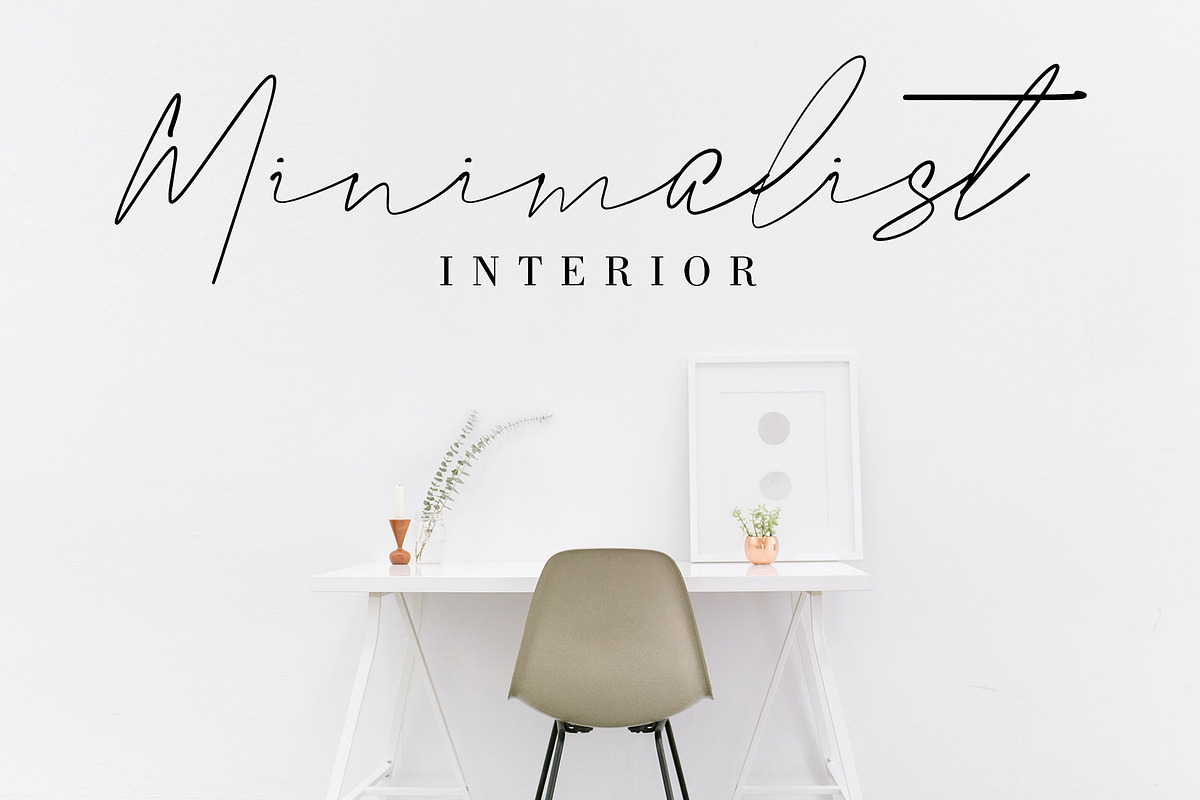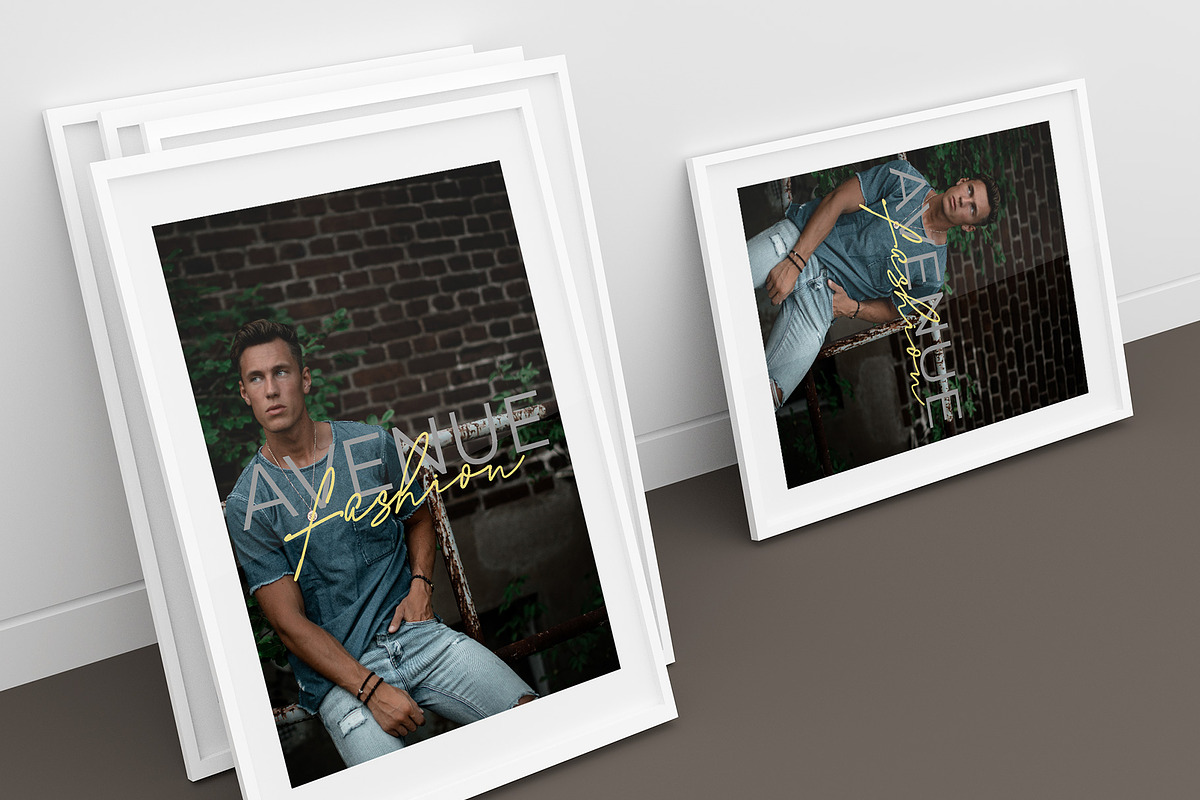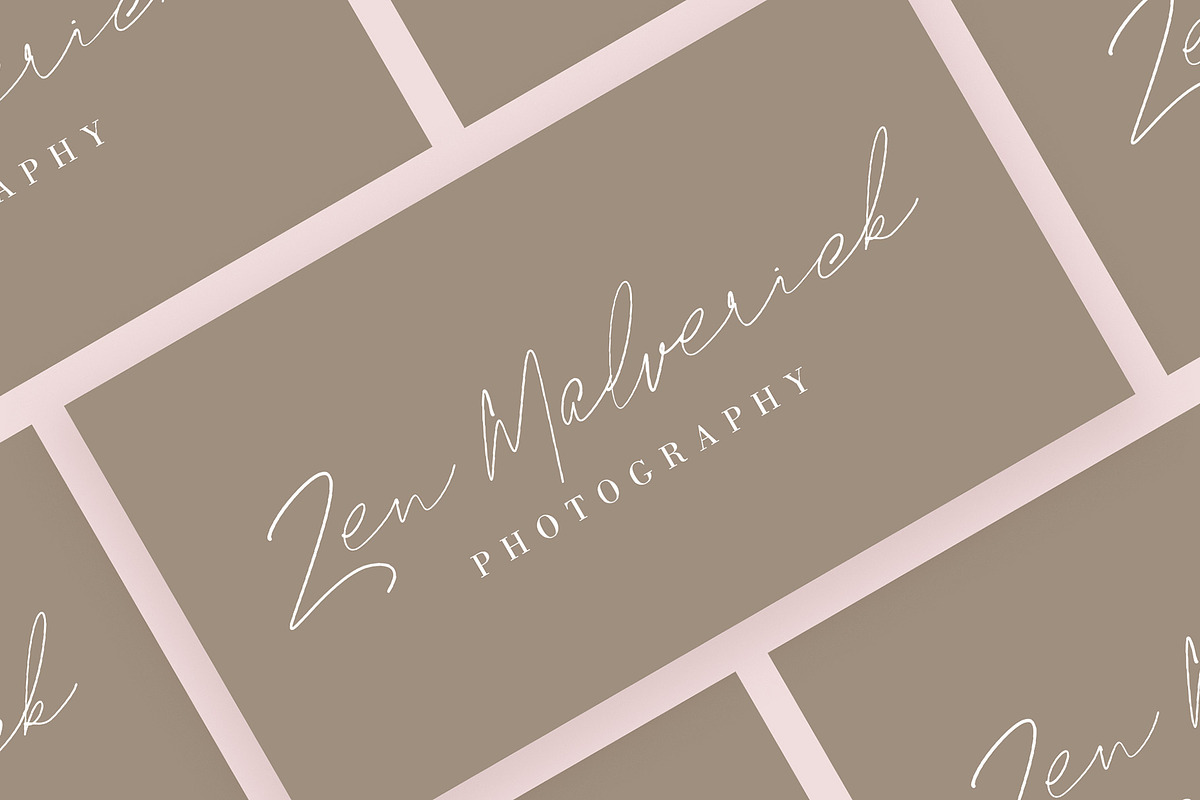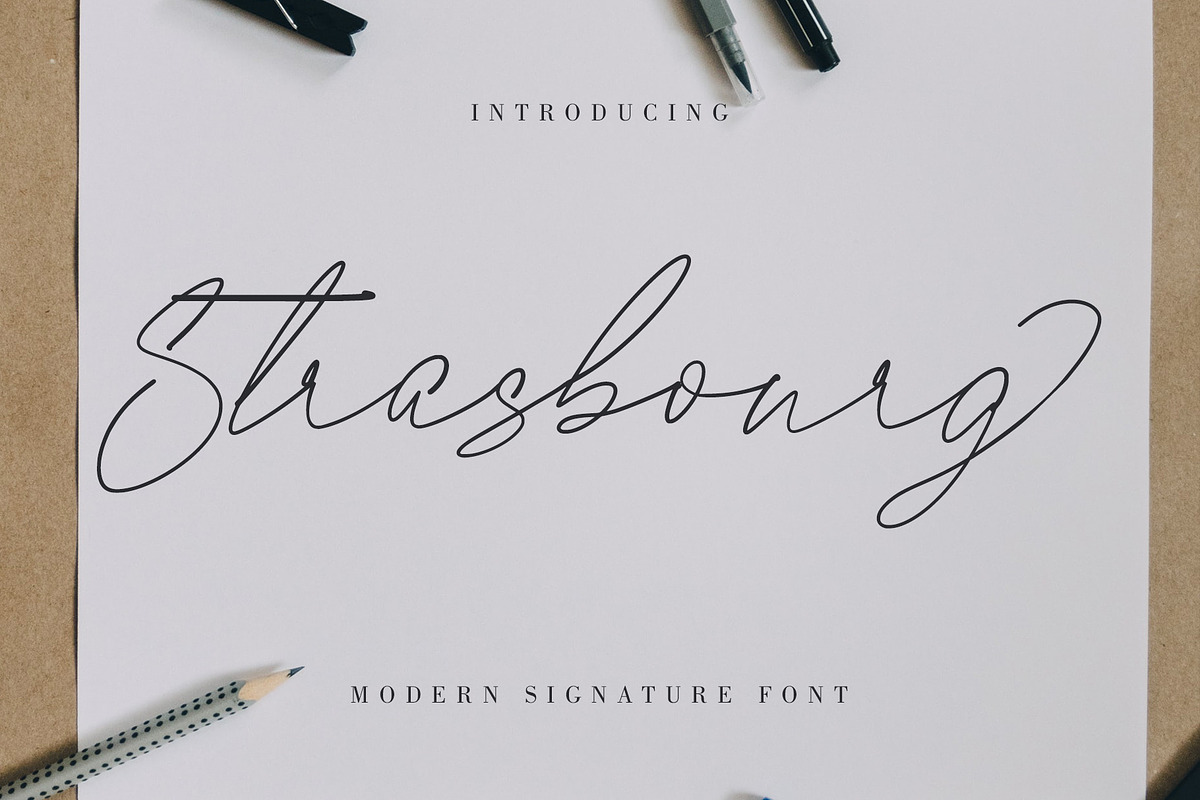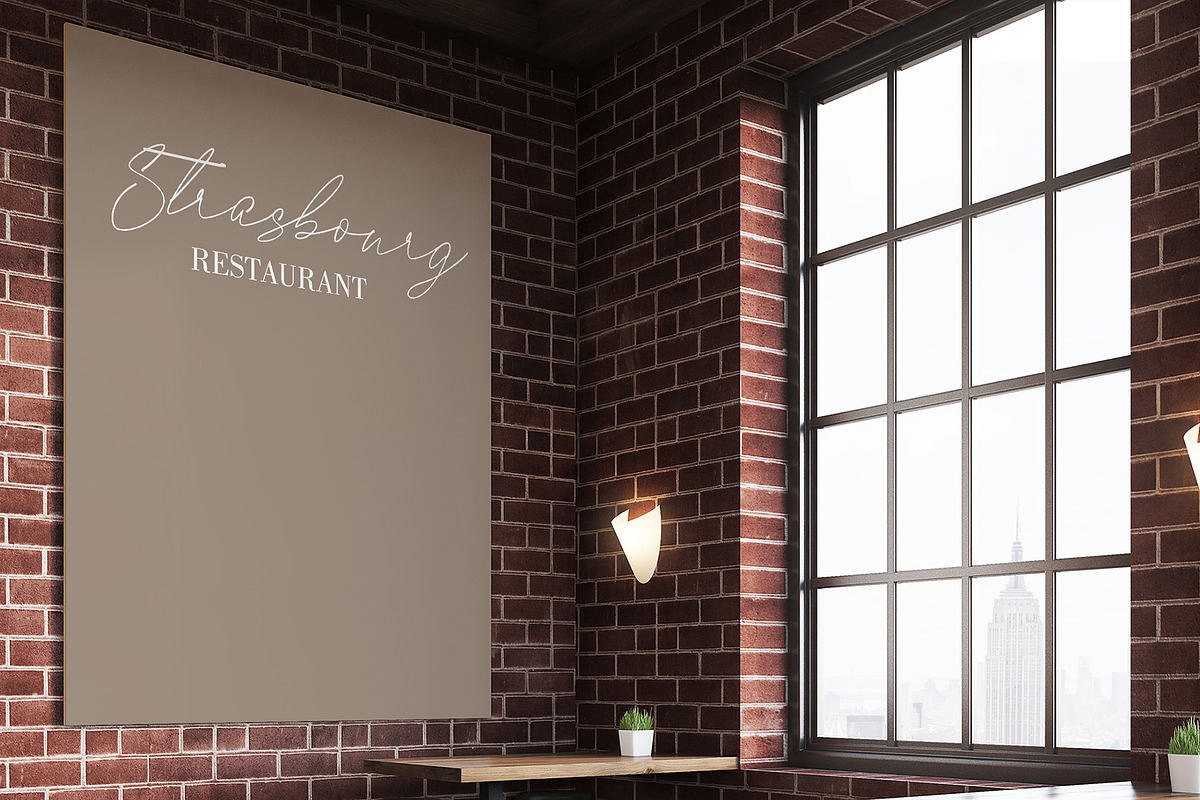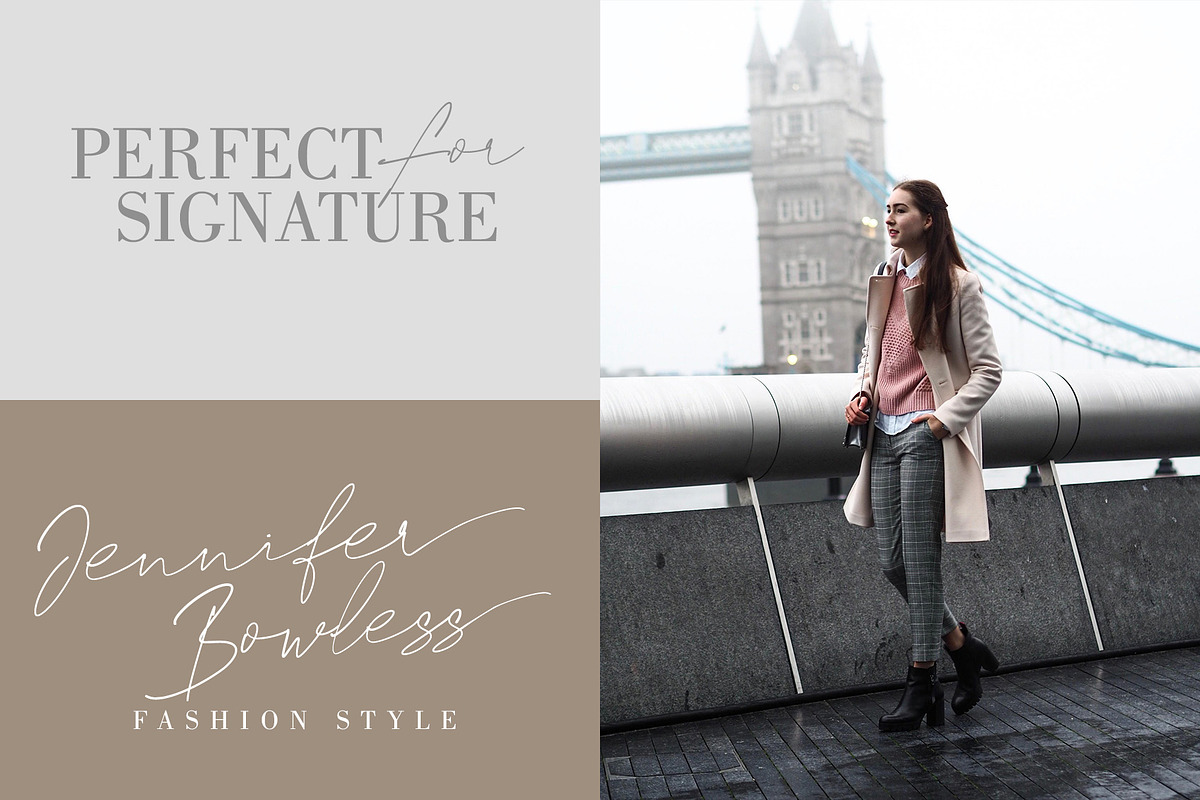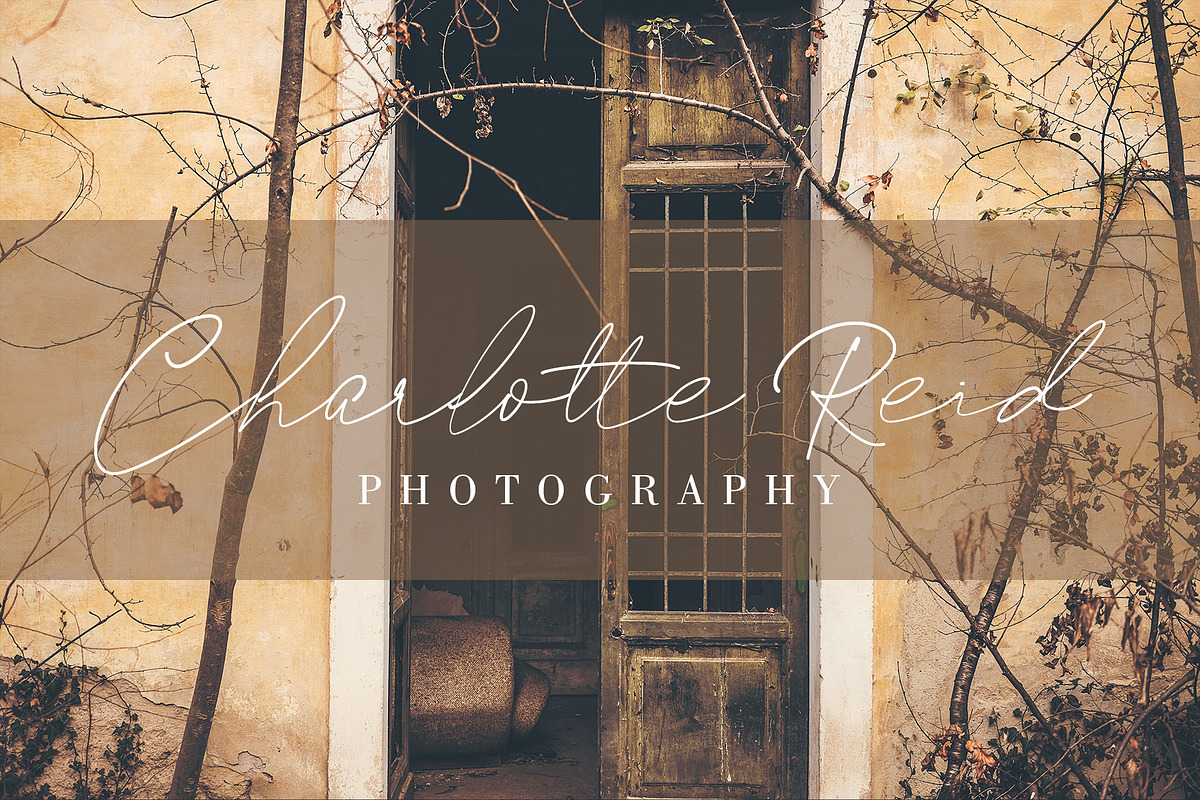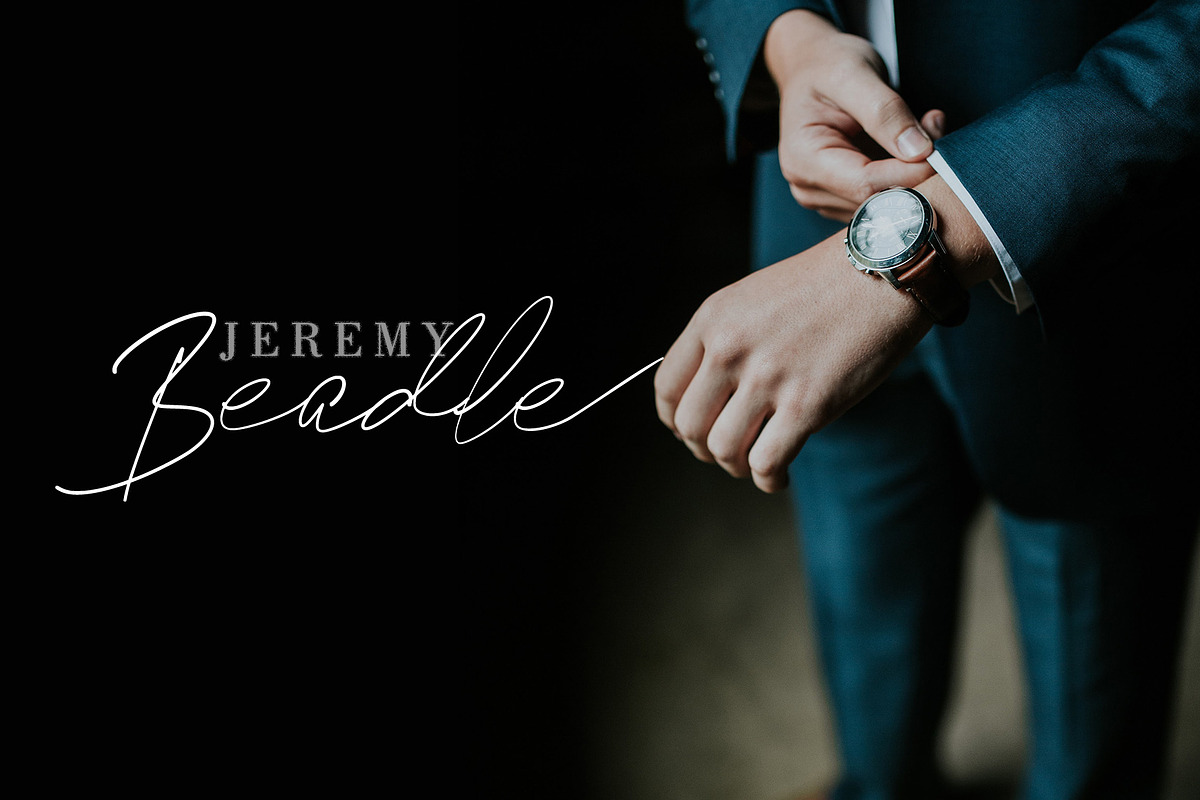
Strasbourg | Modern Signature Font
Introducing Strasbourg modern luxury signature font with realistic handwritten textures. It's great for creating signature logos and watermarks for photography studio, headline & etc. Elegant Signature includes full set of standard character set, stylistic alternate set, numerals, a large range of punctuation, ligatures, lowercase ending swash and multilingual symbols.
A full set of upper & lowercase characters
lowercase ending swashes